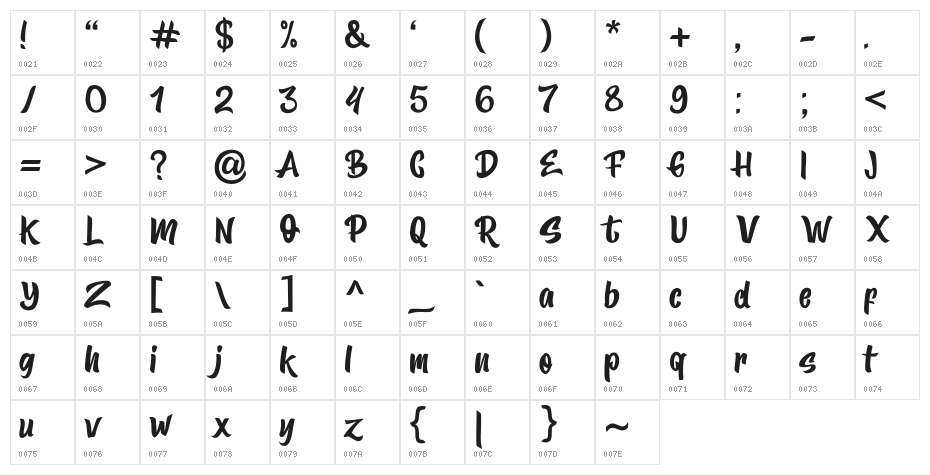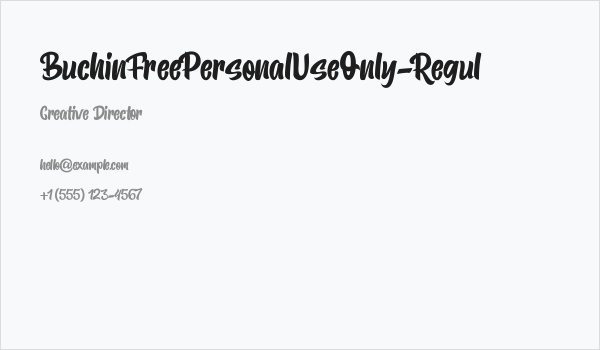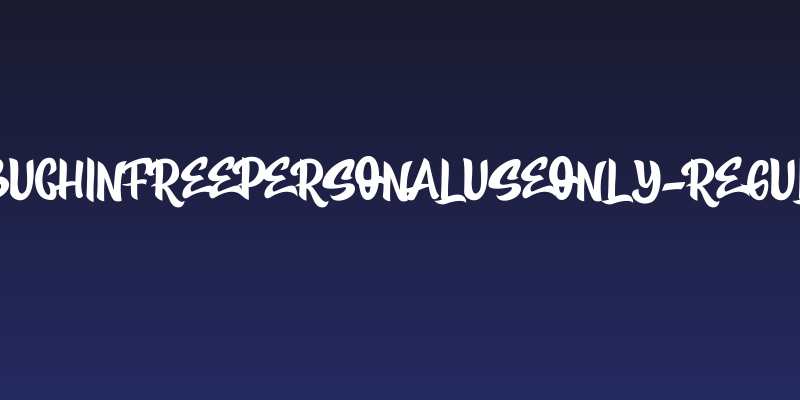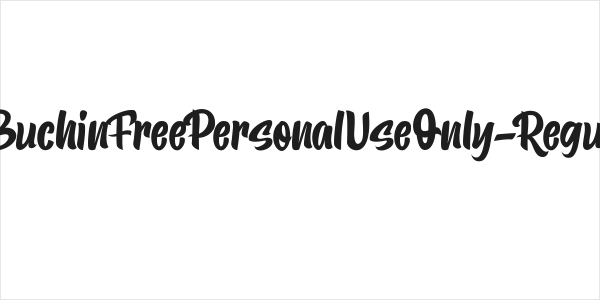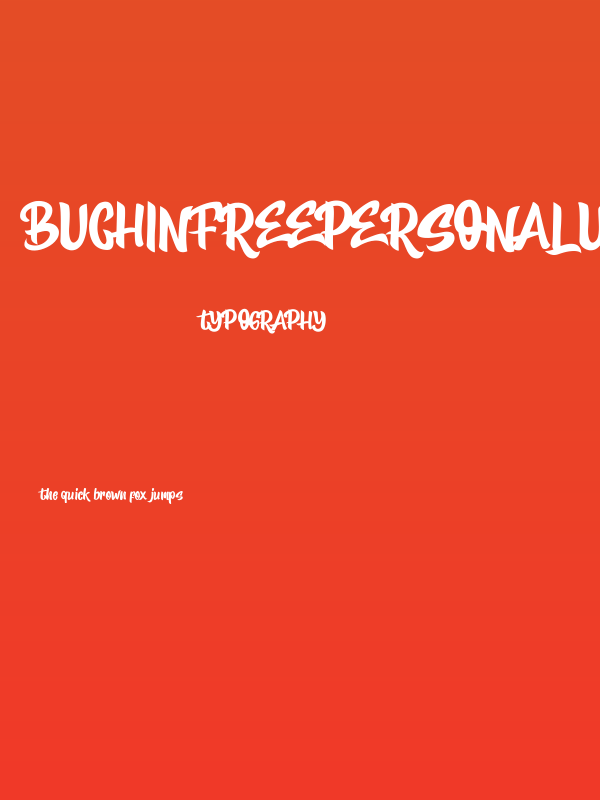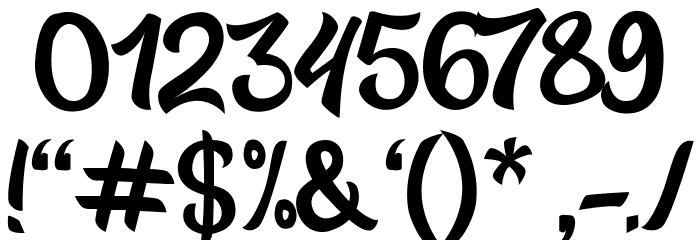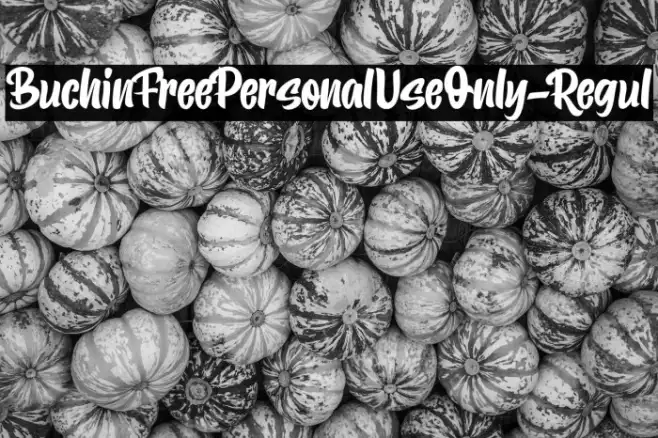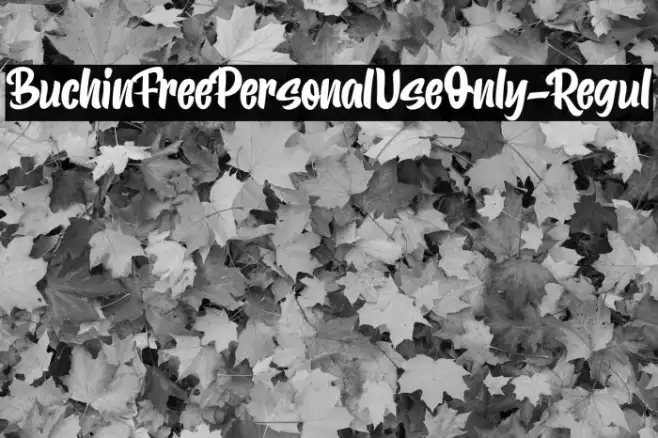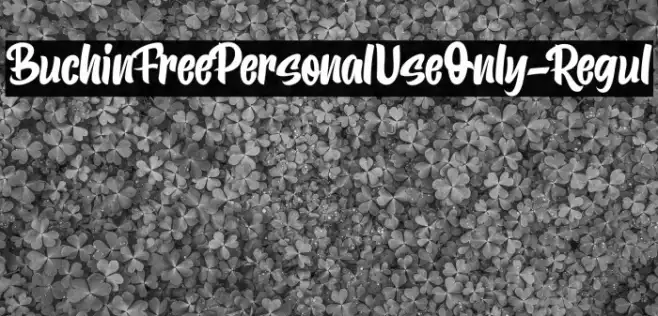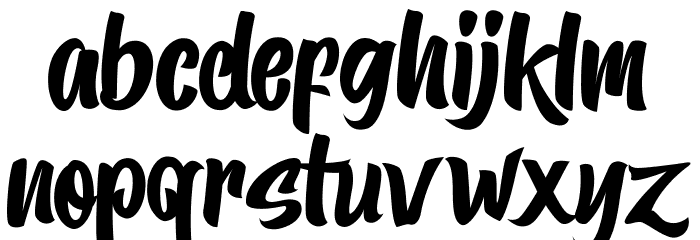
BuchinFreePersonalUseOnly-Regul Font
BuchinFreePersonalUseOnly-Regul Description
This font features a bold and expressive style with a handwritten appearance. The characters are fluid and dynamic, showcasing a playful and energetic vibe. The uppercase letters are slightly larger and more pronounced, while the lowercase letters maintain a consistent flow. Numbers and special characters are designed to match the overall aesthetic, providing a cohesive look. The strokes are thick and rounded, giving the font a friendly and approachable feel. This style is perfect for projects that require a personal touch or a creative flair.
| Proposed Projects | Ideal for greeting cards, posters, branding, and social media graphics. |